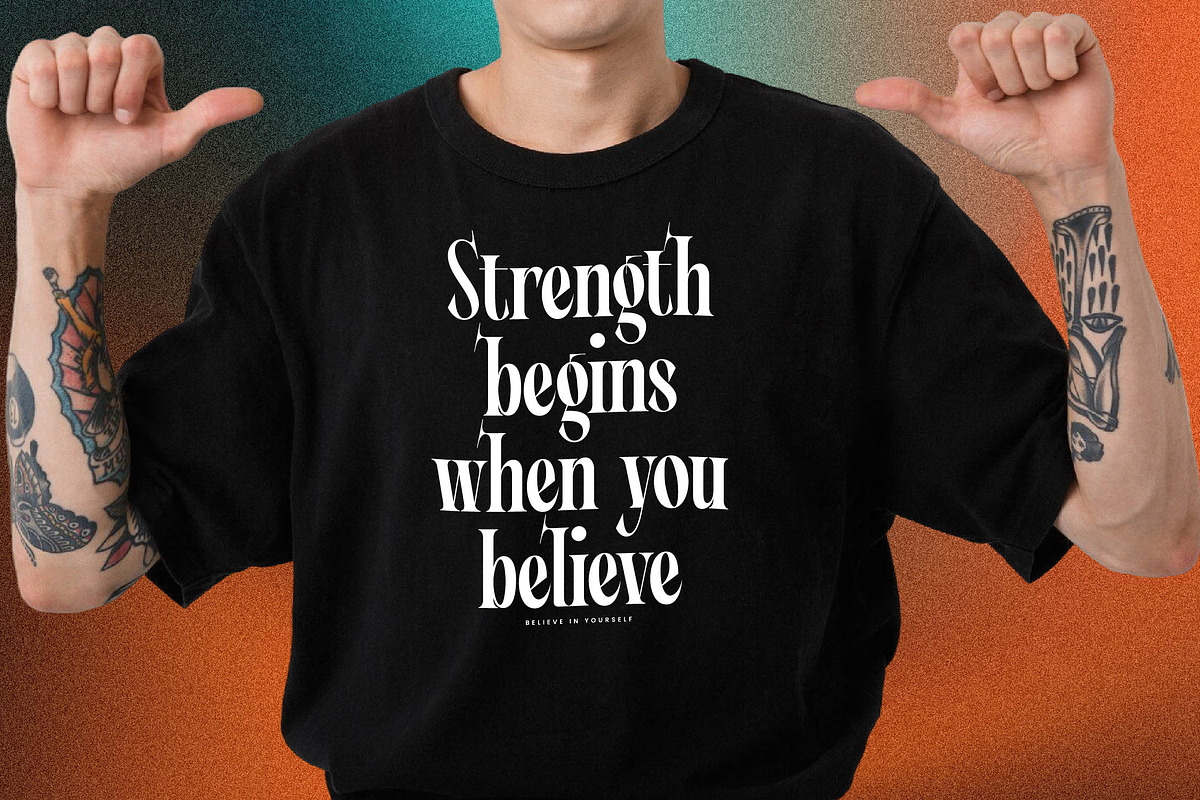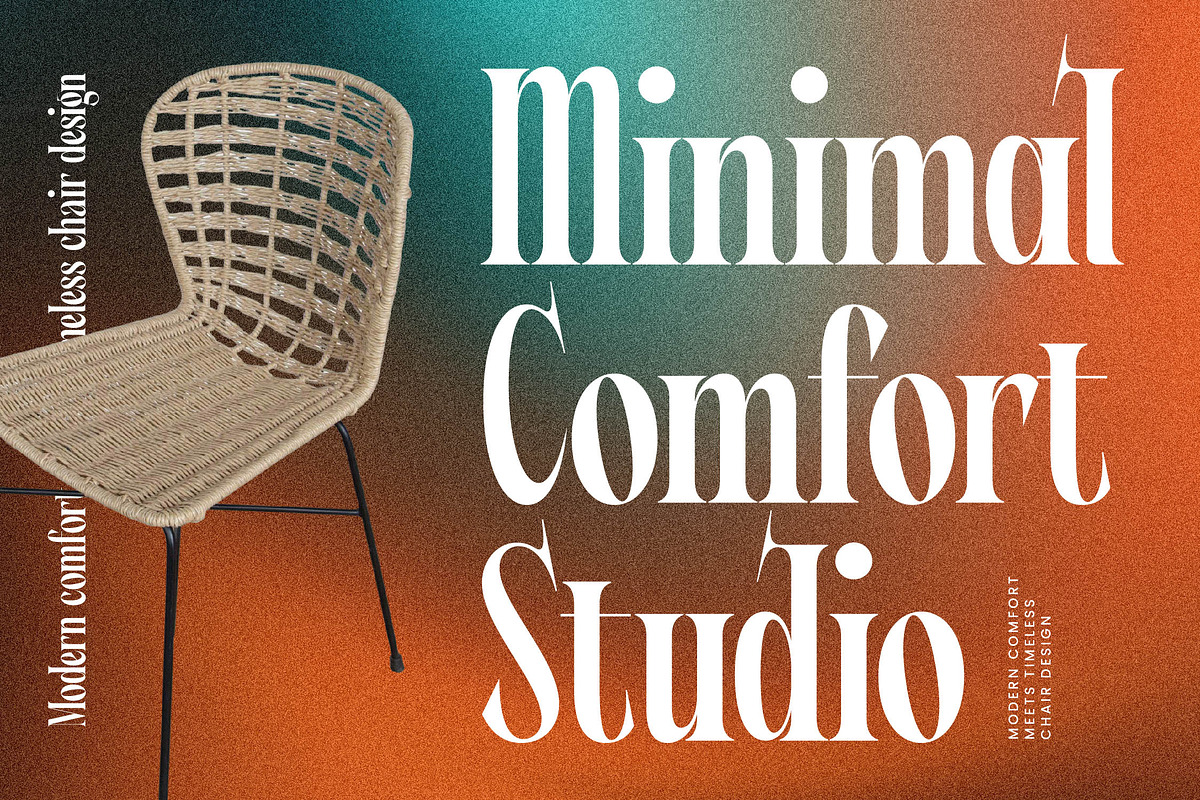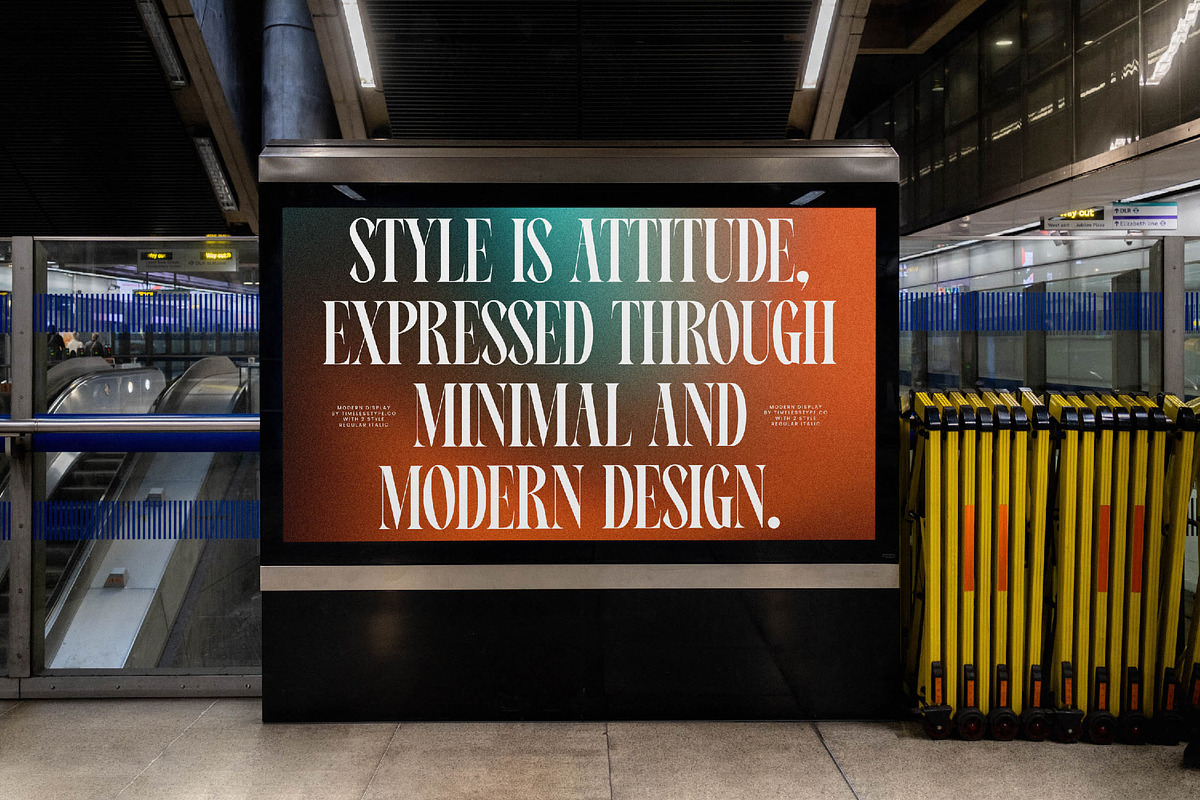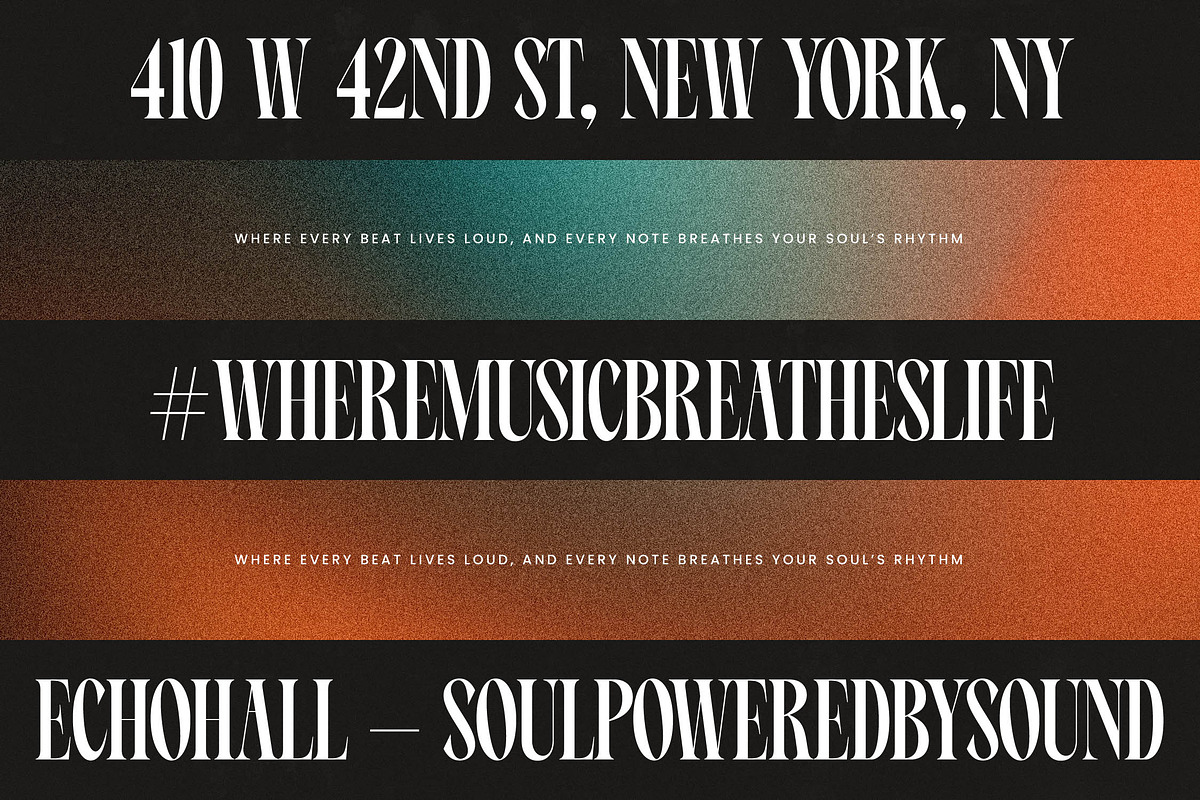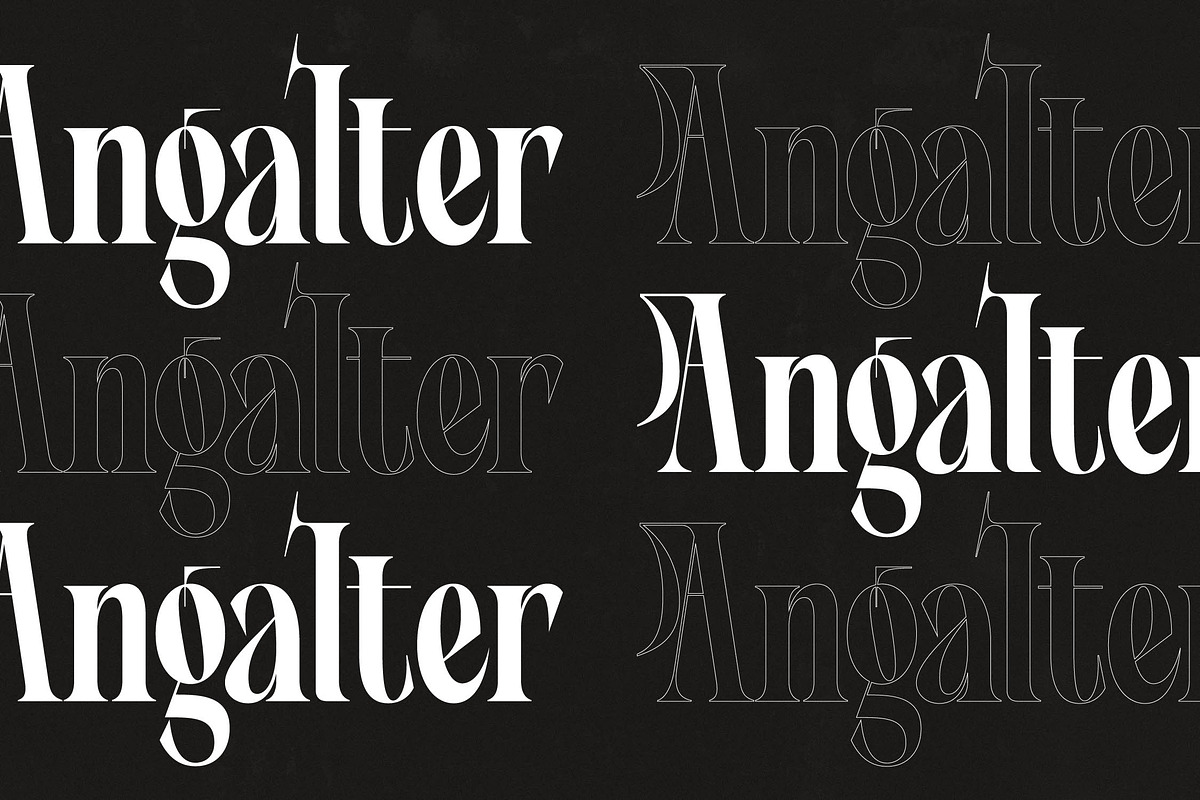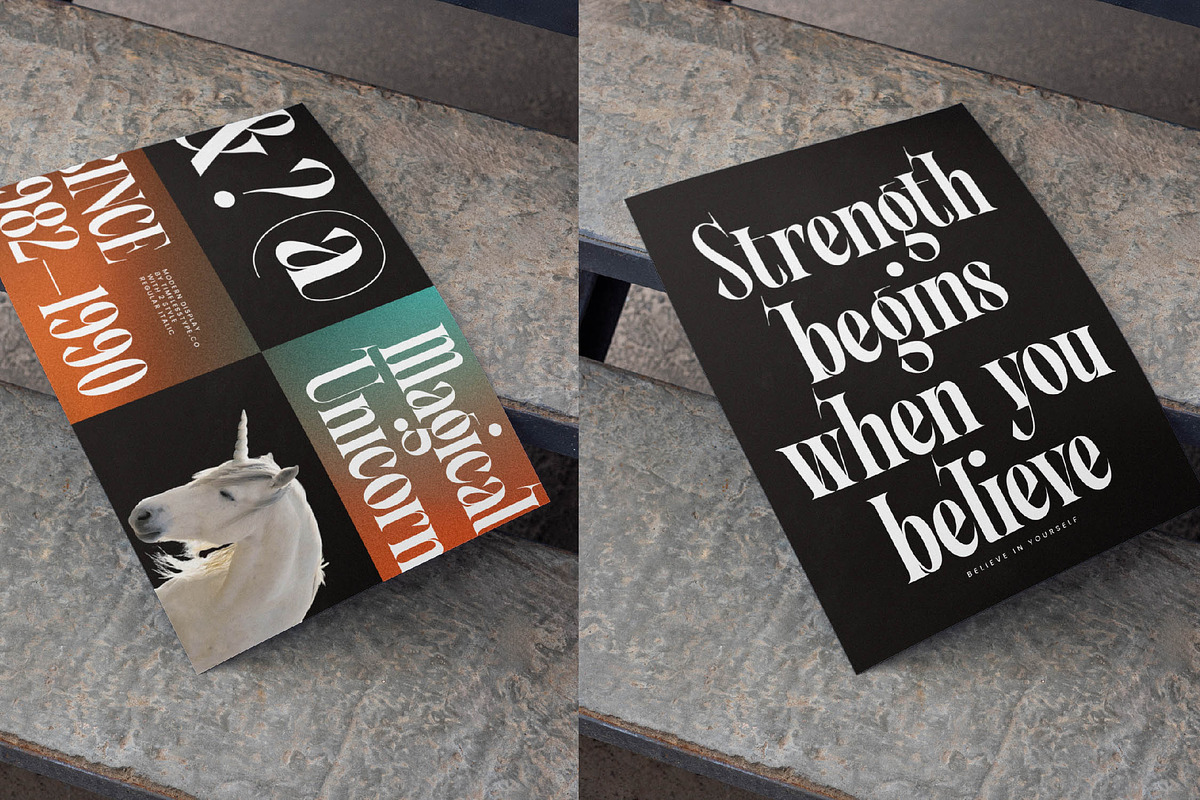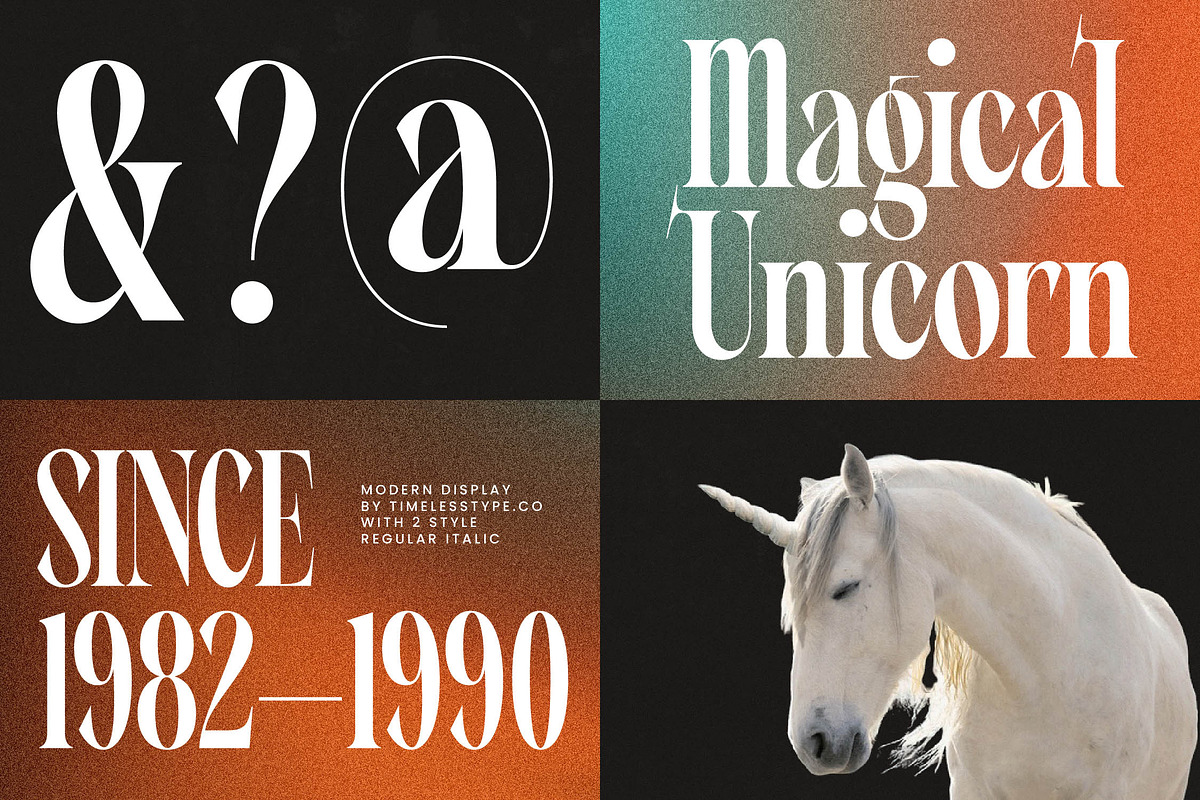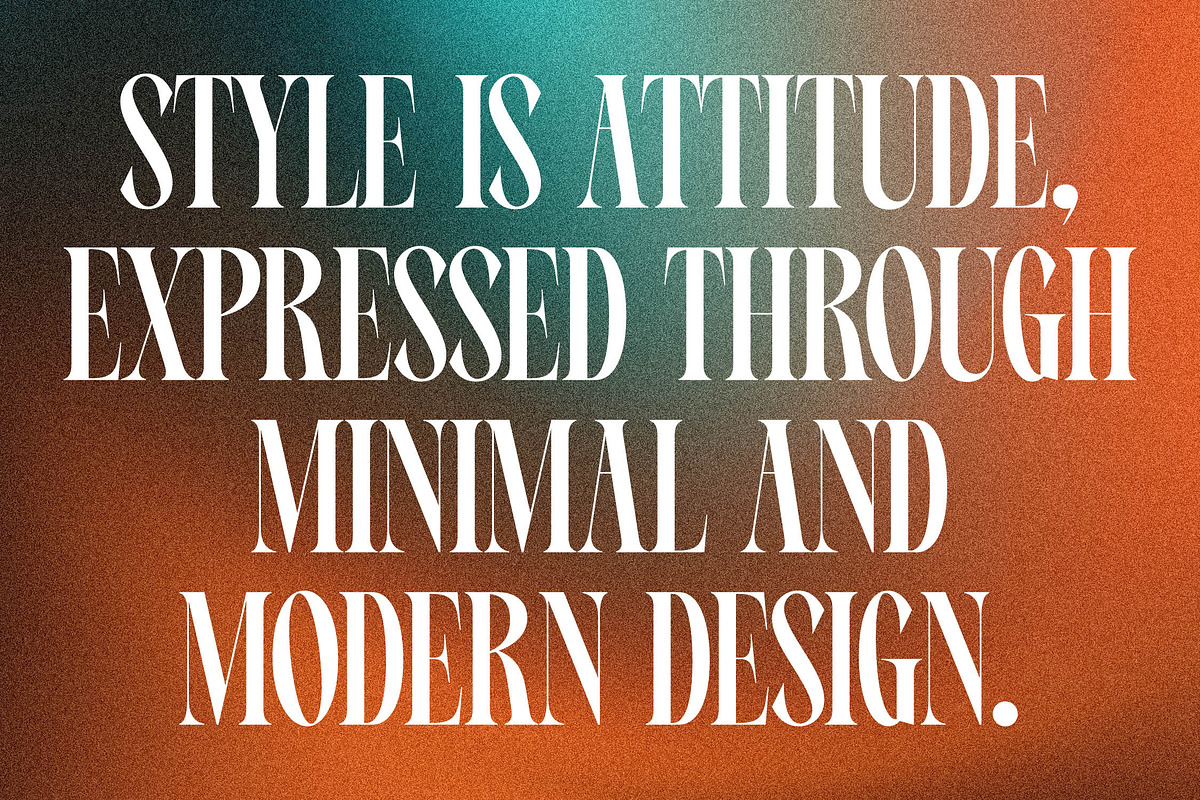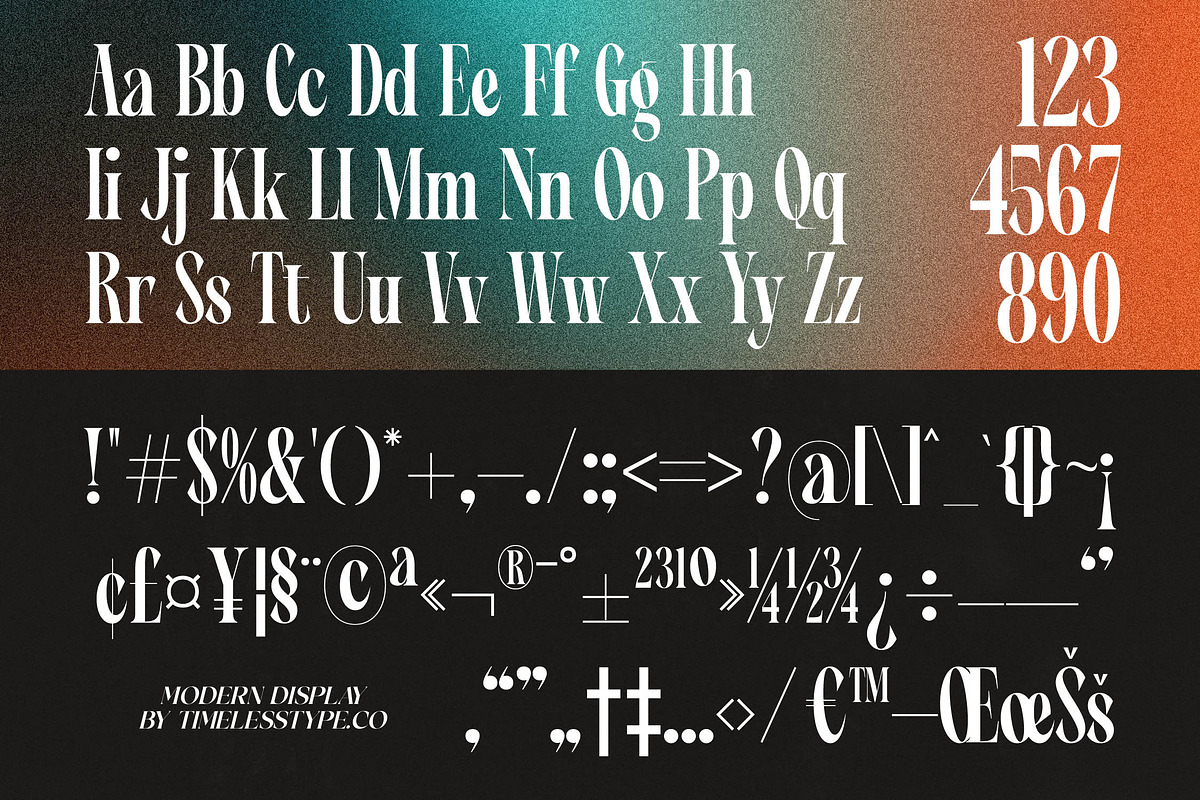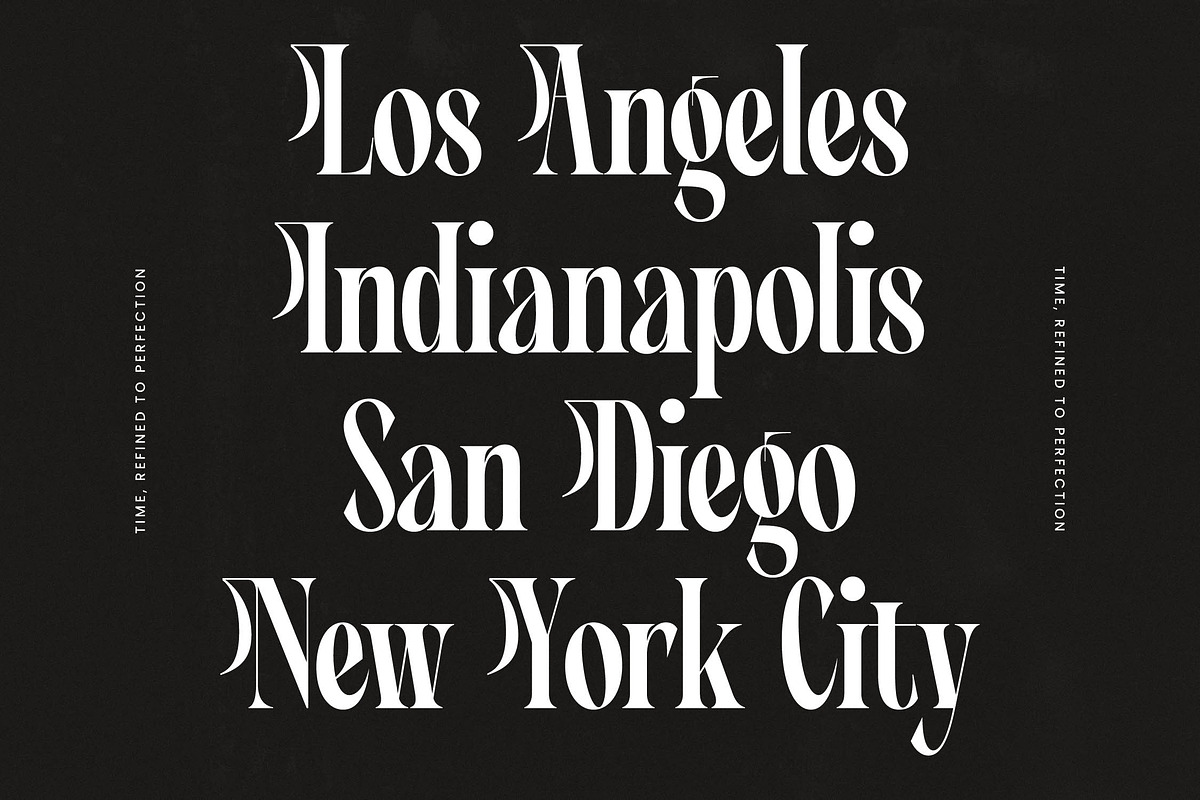
Angalter Modern Display Serif
Elevate your creative vision with Angalter, a typeface that redefines the boundaries of contemporary elegance. This font captures a perfect balance between sharp sophistication and artistic fluidity, ensuring every headline speaks with a distinct, confident voice.
Inspired by the high-grain aesthetics of modern editorial photography and the sleek silhouettes of avant-garde design, this typeface was born from a desire to merge classic serif structures with a futuristic edge. It evokes a sense of timelessness while remaining firmly rooted in today's most daring visual landscapes.
Exuding an aura of prestige, Angalter is a modern serif display choice designed to maximize your branding impact. Its high-contrast serif details and razor-sharp terminals create a luxury typography experience that transforms simple text into a curated piece of editorial font art.
Embracing the current modern serif trend, this typeface is an essential tool for designers seeking character-driven typography that breaks away from the ordinary. As editorial display fonts continue to dominate the visual scene, this family provides the unique shapes needed to stand out in a saturated market.
This versatile family is the ultimate solution for high-end logo design and comprehensive branding projects that require a touch of class. Whether you are crafting a minimalist fashion lookbook, luxury packaging, an upscale wedding invitation, or a bold editorial layout, these characters deliver unmatched style.
Loaded with professional features, this collection includes over 50 ligatures and 60 alternates to give your layouts a custom-lettered feel. Complete with decorative swashes, the font offers full multilingual support and international characters to ensure your global message remains seamless and stunning.